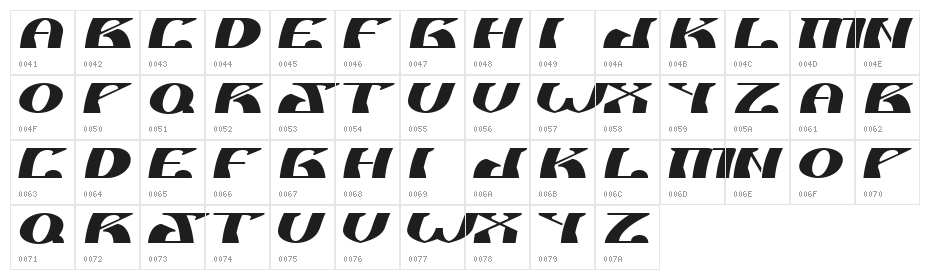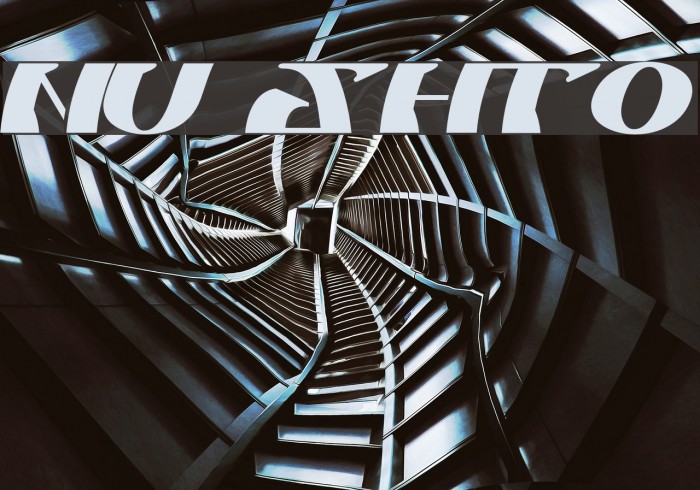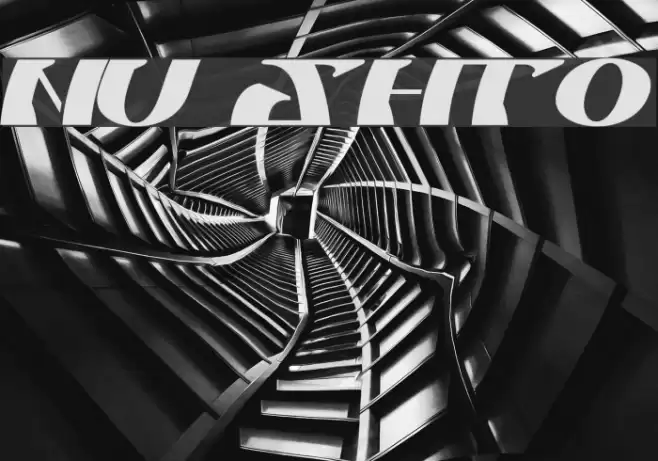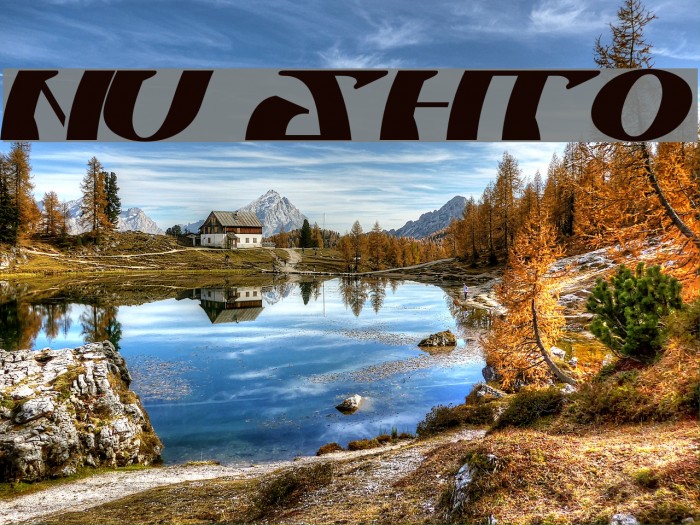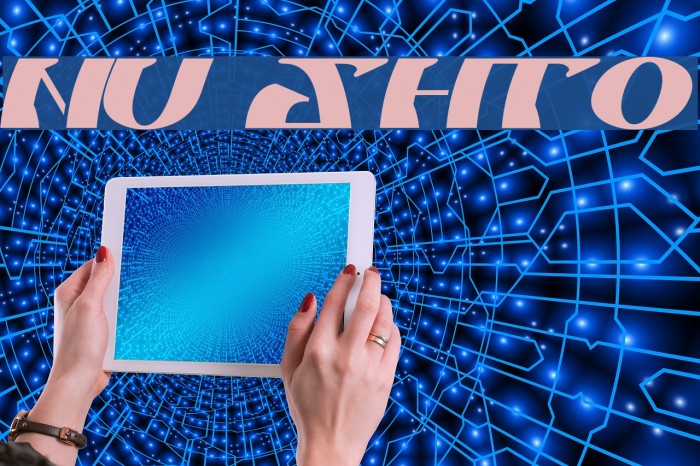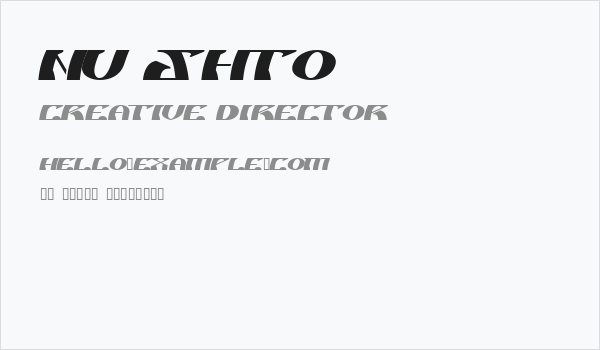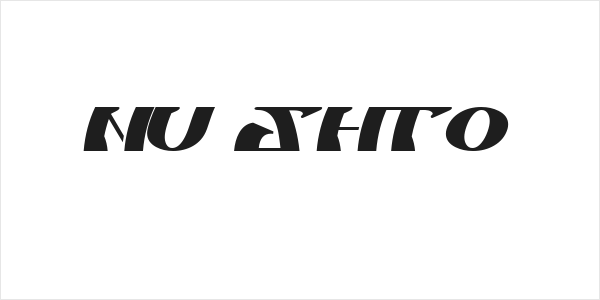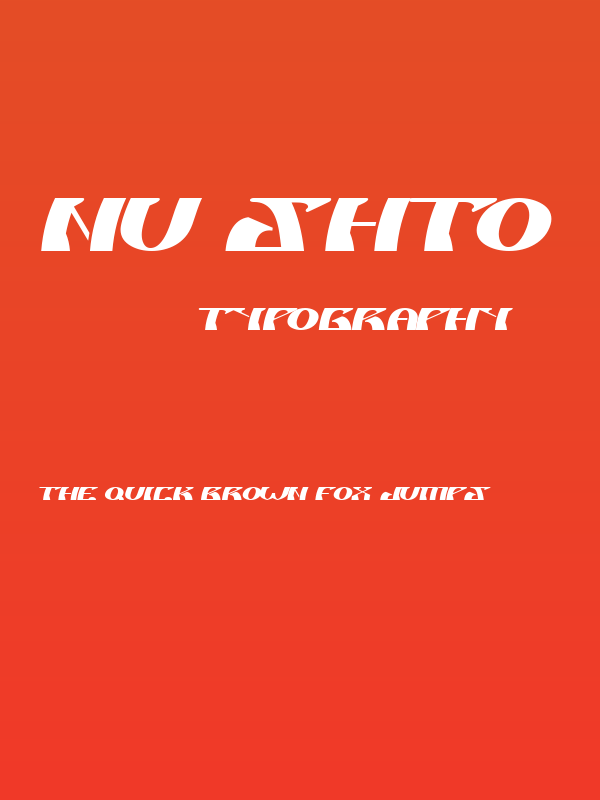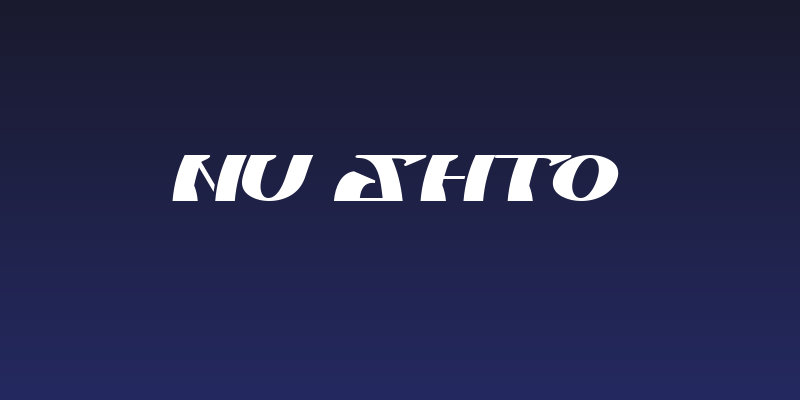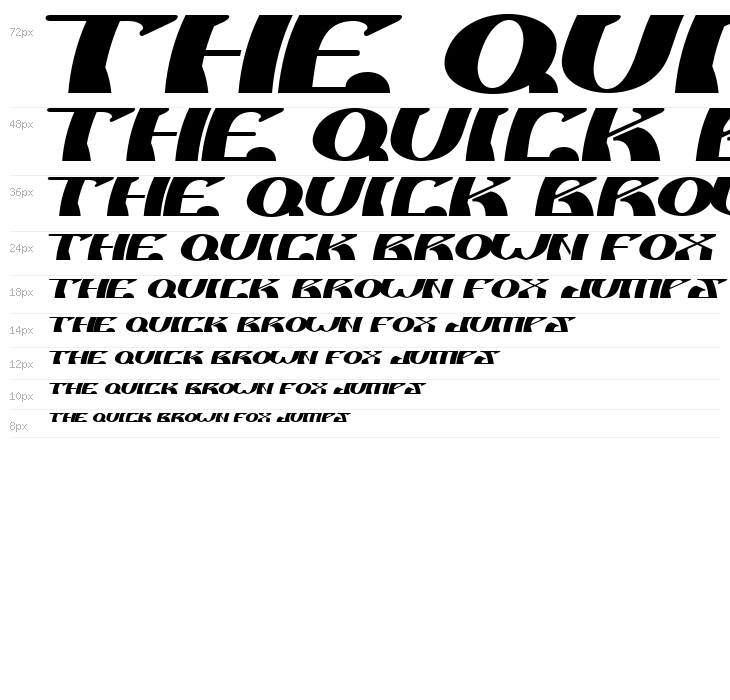
Nu shto Font
Nu shto Description
This font features a bold and dynamic design with a strong emphasis on angular and geometric shapes. The uppercase letters exhibit a futuristic and avant-garde style, characterized by sharp edges and unique cutouts that create a sense of movement and energy. The absence of lowercase letters and numbers suggests a focus on impactful and striking visual communication. The font's distinct style makes it suitable for projects that require a modern and edgy aesthetic, such as branding for tech companies, music album covers, or sci-fi themed designs. The overall appearance is both innovative and eye-catching, making it a great choice for creative and unconventional applications.
| Overall Style | Futuristic, Avant-garde |
| Use Case | Logos, Headlines |
| Proposed Projects | Ideal for tech branding, music album covers, and sci-fi themed designs. |